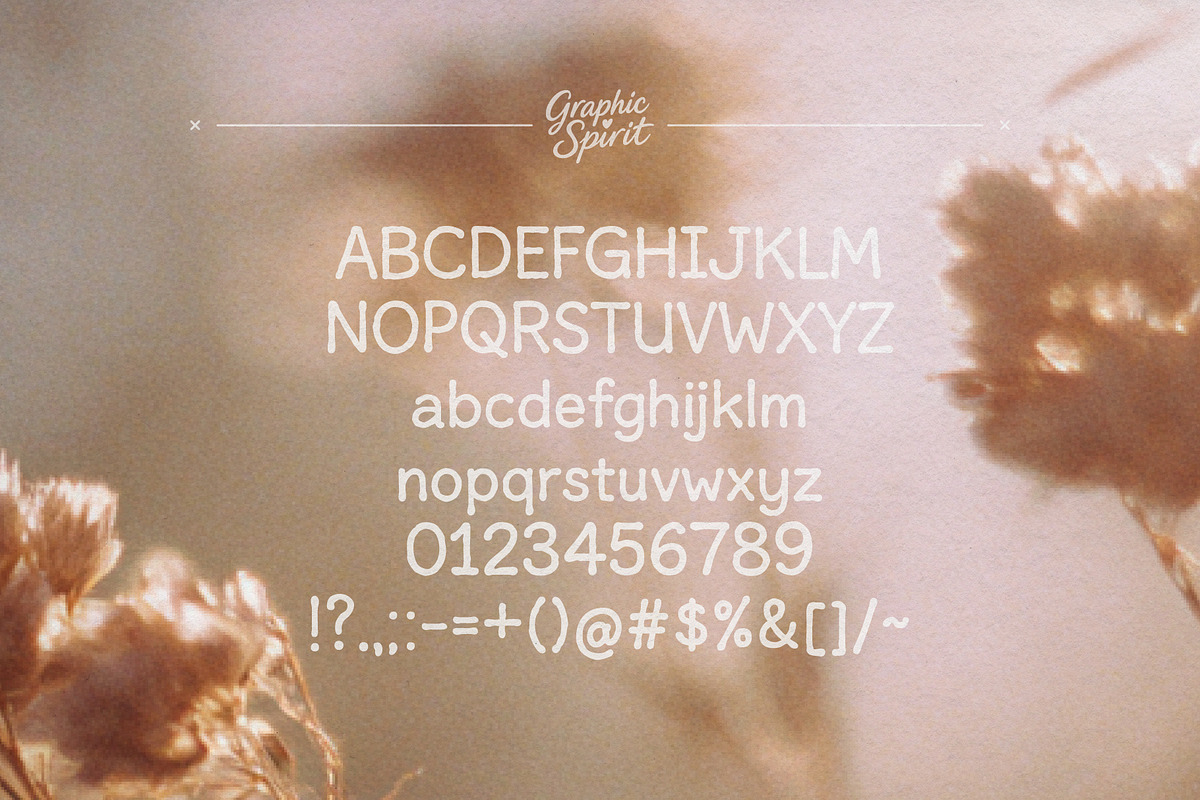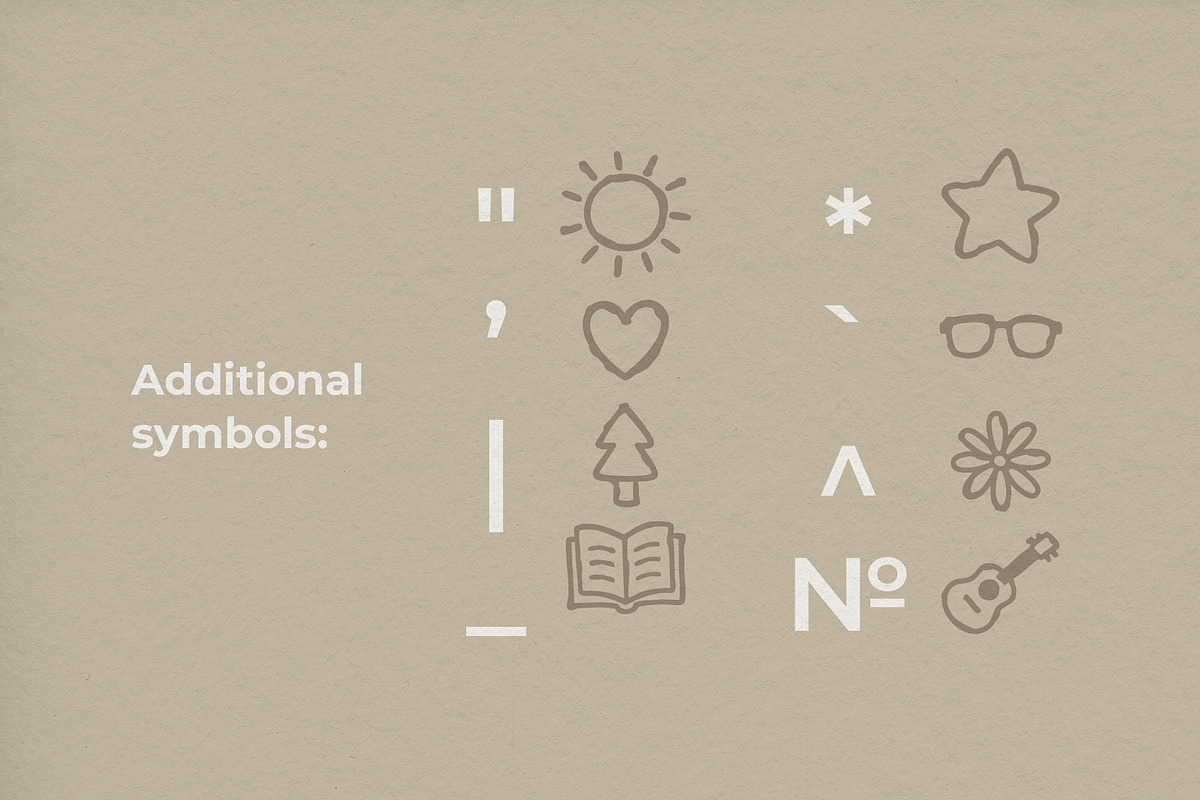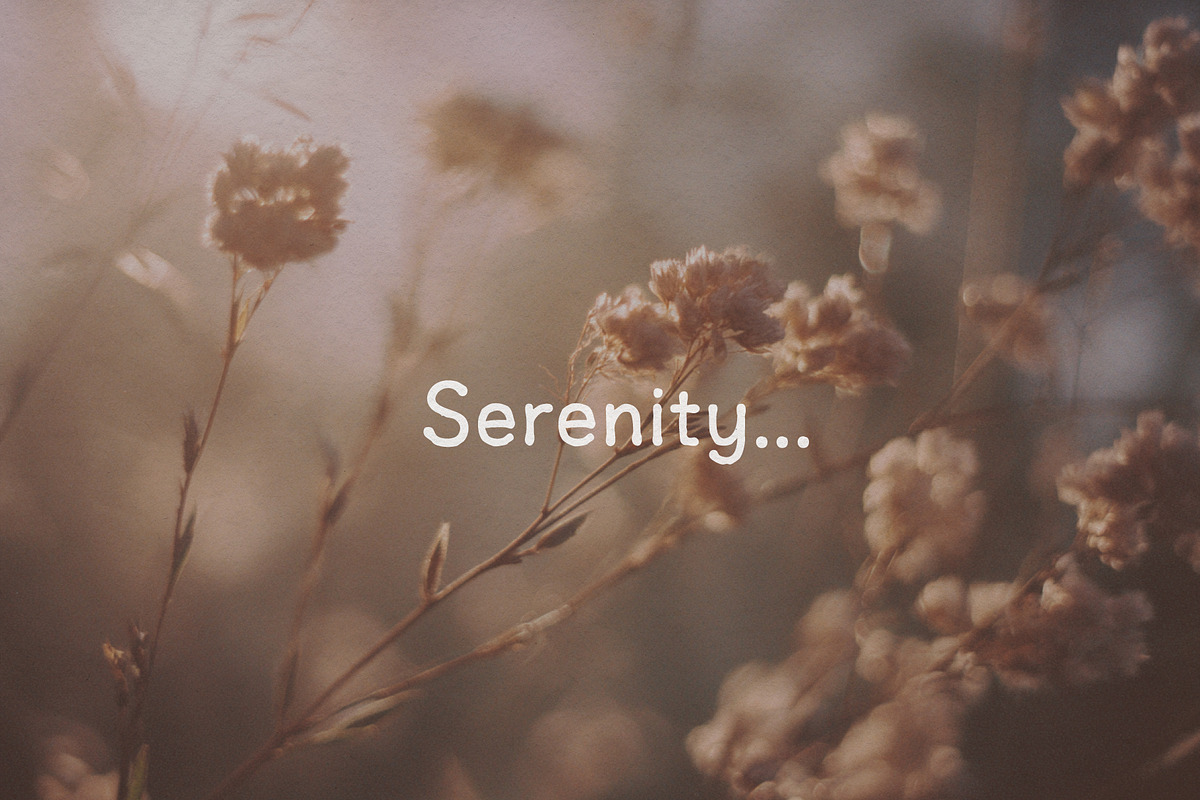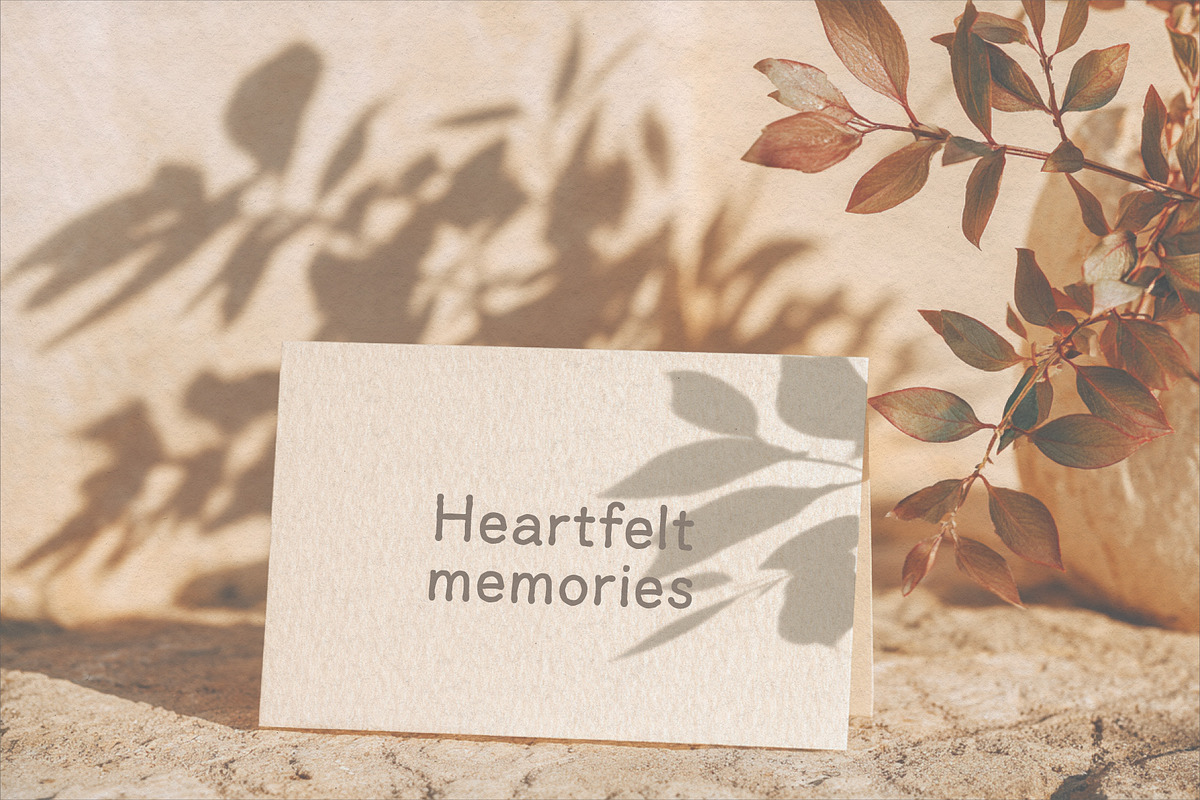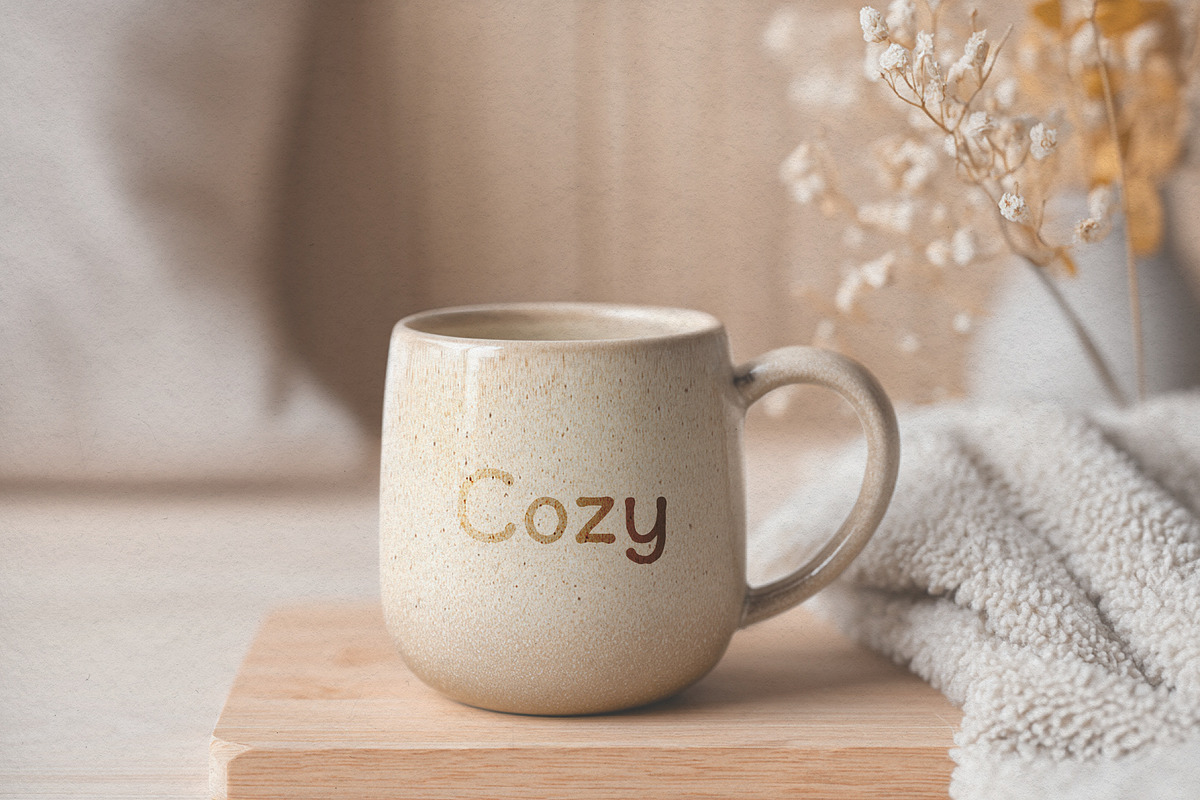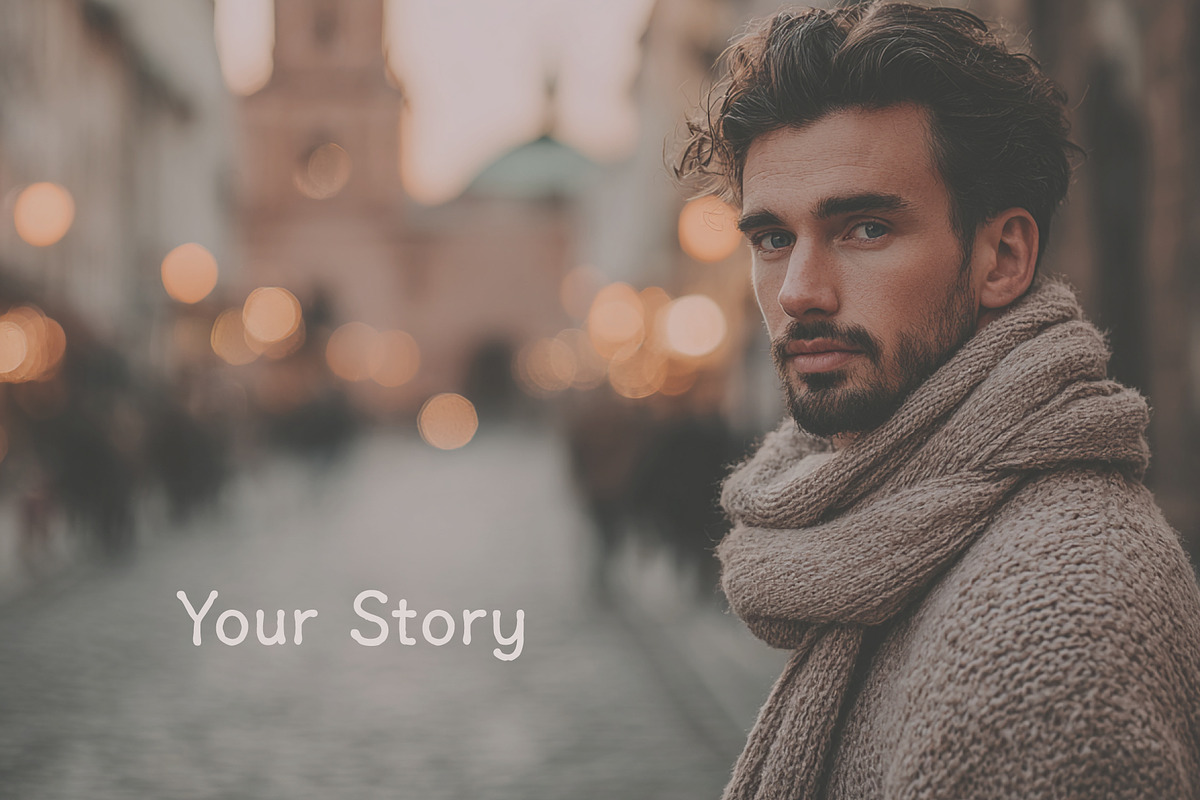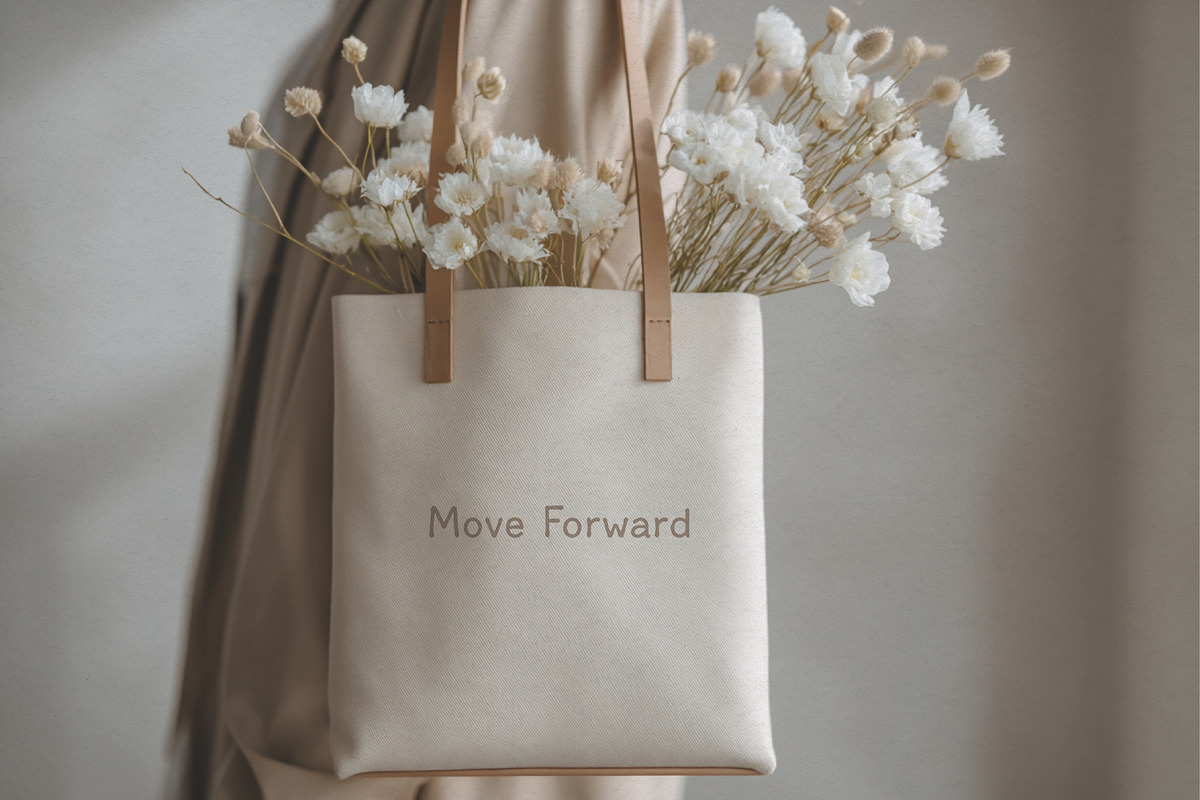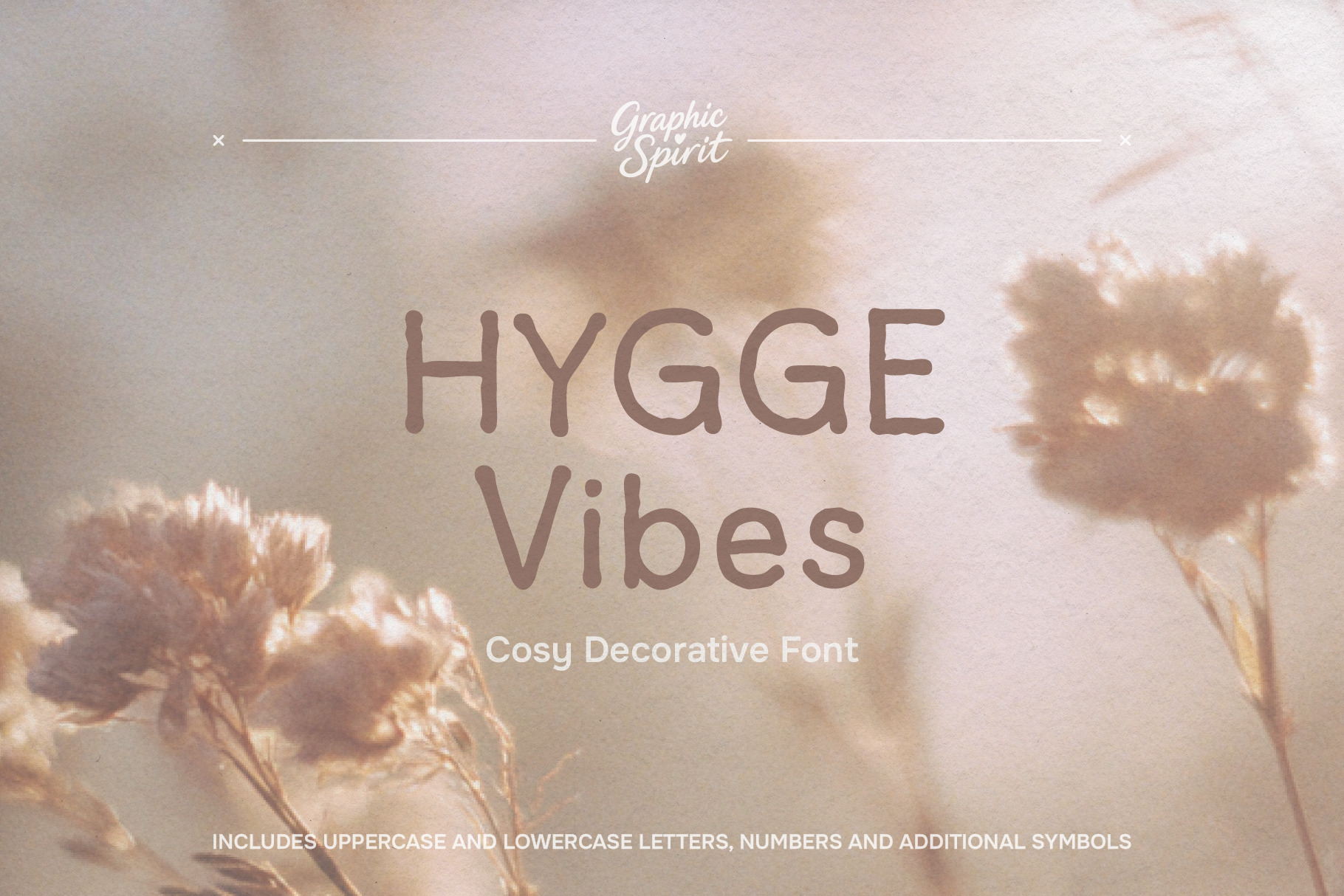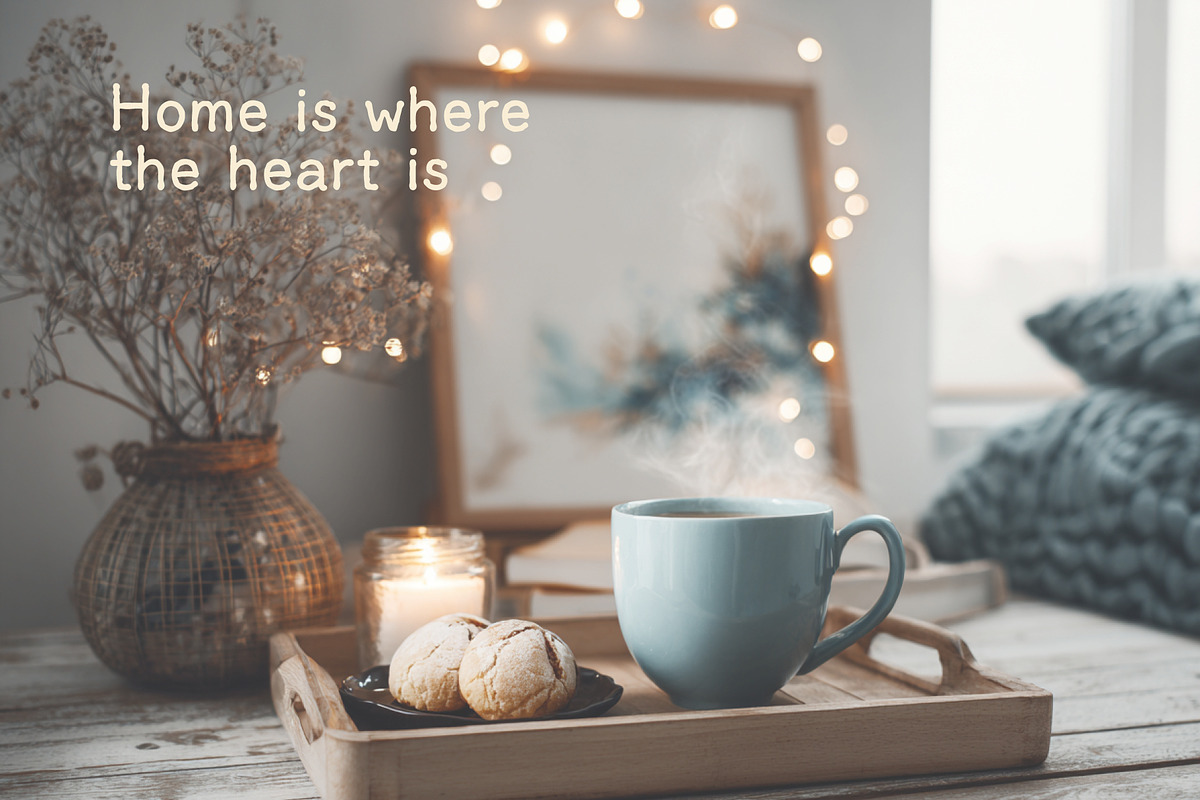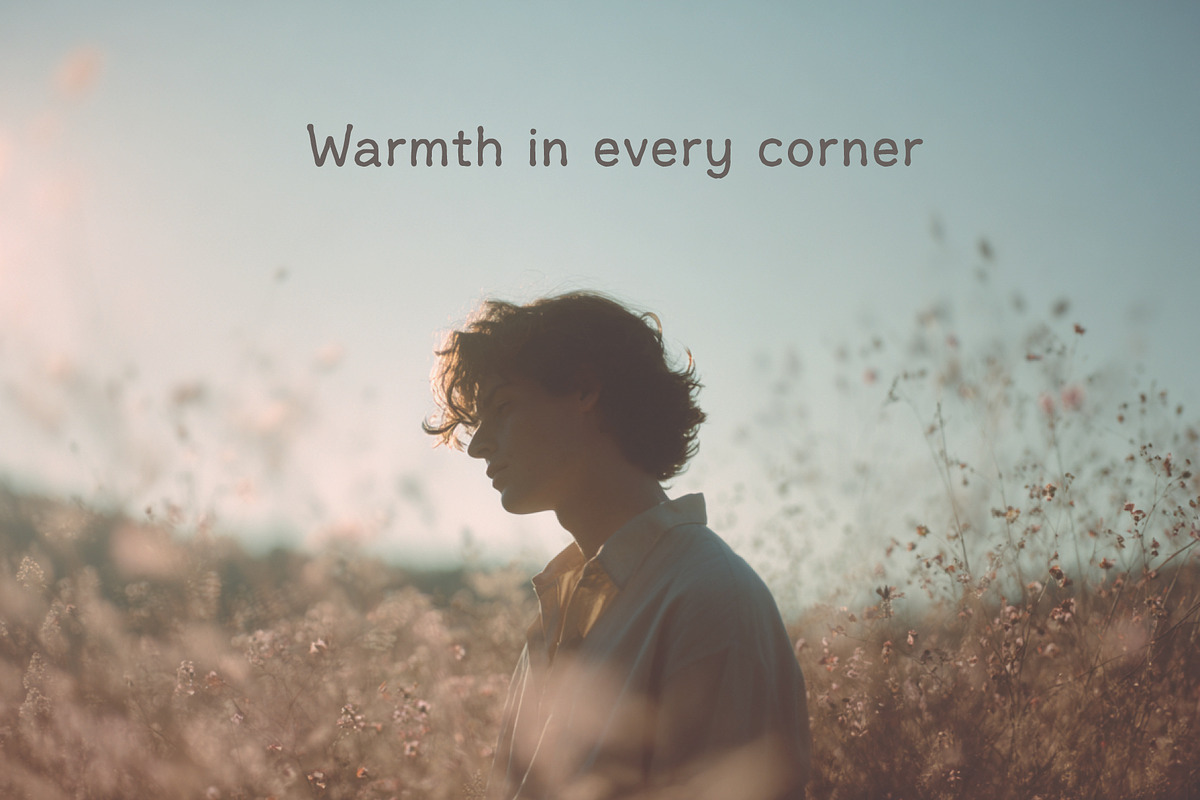
Hygge Vibes Cozy Decorative Font
✨ Welcome the warm, comforting essence of Danish 'hygge' into your creative projects with our cosy decorative font. This beautifully crafted typeface features soft, rounded letters with a gentle, hand-drawn feel, perfect for adding a touch of whimsical charm and relaxed elegance to your designs. Instantly download this versatile font to elevate your DIY crafts, wedding stationery, cozy blog, and heartfelt quotes.